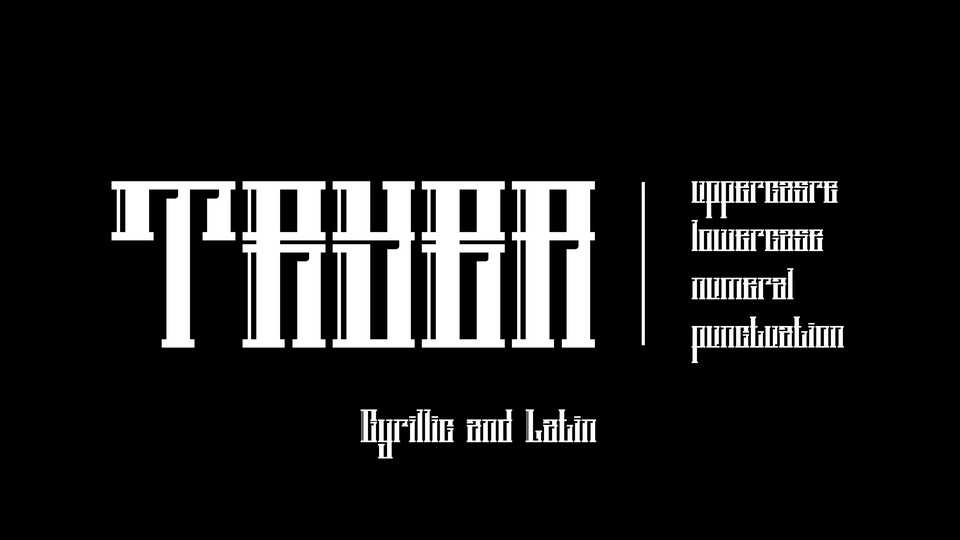
Download MYKA Tryba font, a display typeface similar to Greek columns. The font consists of a combination of narrow and wide lines with a certain cutout, which creates a feeling of antiquity.
Designer: Kamila Mukhtarova